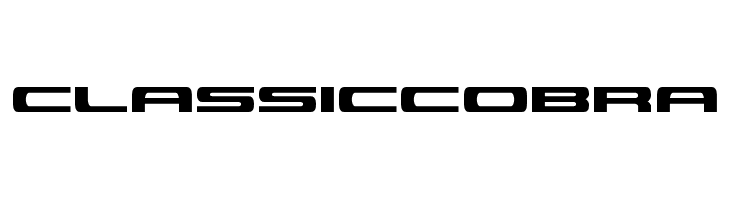
• Classic Cobra caratteri
A bold, futuristic font with geometric and angular design elements.
• Classic Cobra caratteri
A bold, futuristic font with geometric and angular design elements.
• Classic Cobra 3D caratteri
A bold, geometric font with a 3D outline effect, perfect for modern designs.
• Classic Cobra 3D caratteri
A bold, geometric 3D font with a modern and striking appearance.
• Classic Cobra 3D Italic caratteri
A bold, 3D italic font with a futuristic and dynamic style.
• Classic Cobra 3D Italic caratteri
A bold, 3D italic font with a futuristic and dynamic style.
• Classic Cobra Academy caratteri
A bold, futuristic font with geometric outlines and a three-dimensional effect.
• Classic Cobra Academy caratteri
A bold, futuristic font with sharp angles and outlined characters.
• Classic Cobra Academy Italic caratteri
A bold, italicized font with a modern, dynamic style.
• Classic Cobra Academy Italic caratteri
A bold, italicized font with a futuristic and dynamic style.